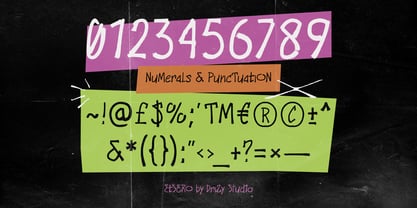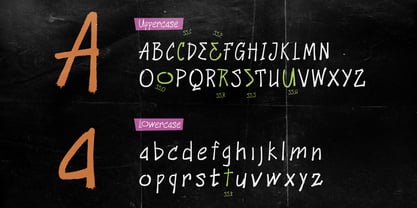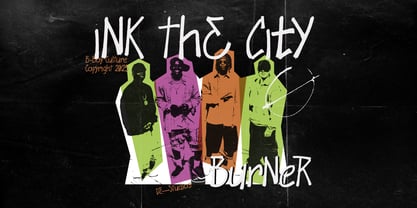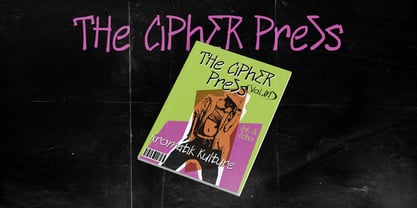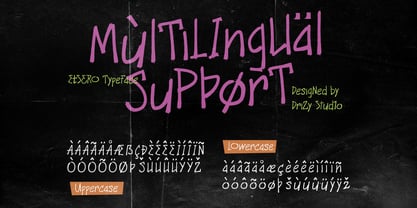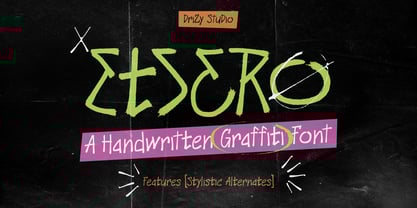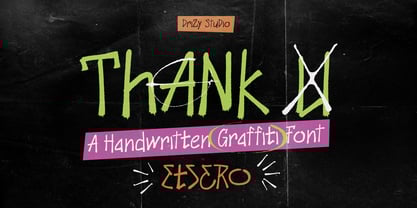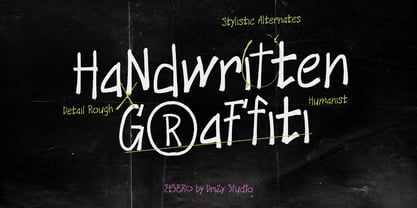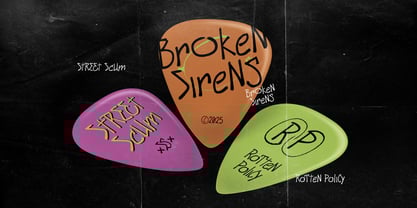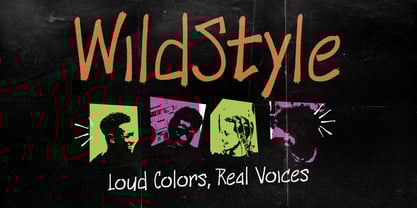
Etsero
by Drizy Font
The Etsero Font Family was designed by Panca Ahmadi Hasan and published by Drizy Font. Etsero contains 1 styles.
Etsero – Handwritten Graffiti Font
Etsero is an edgy handwritten graffiti font that captures the raw energy of street art with a spraypaint-inspired aesthetic. Its expressive strokes and irregular forms mimic authentic hand-drawn tags, making it perfect for urban designs, rebellious branding, music posters, or any project that needs a gritty, underground vibe. Etsero brings the spirit of handwriting and spraypaint straight to your design canvas.
Etsero – Handwritten Graffiti Font features:
• Character Set (Uppercase & Lowercase)
• Numbers & Punctuation
• Multilingual
• Stylistic Alternates